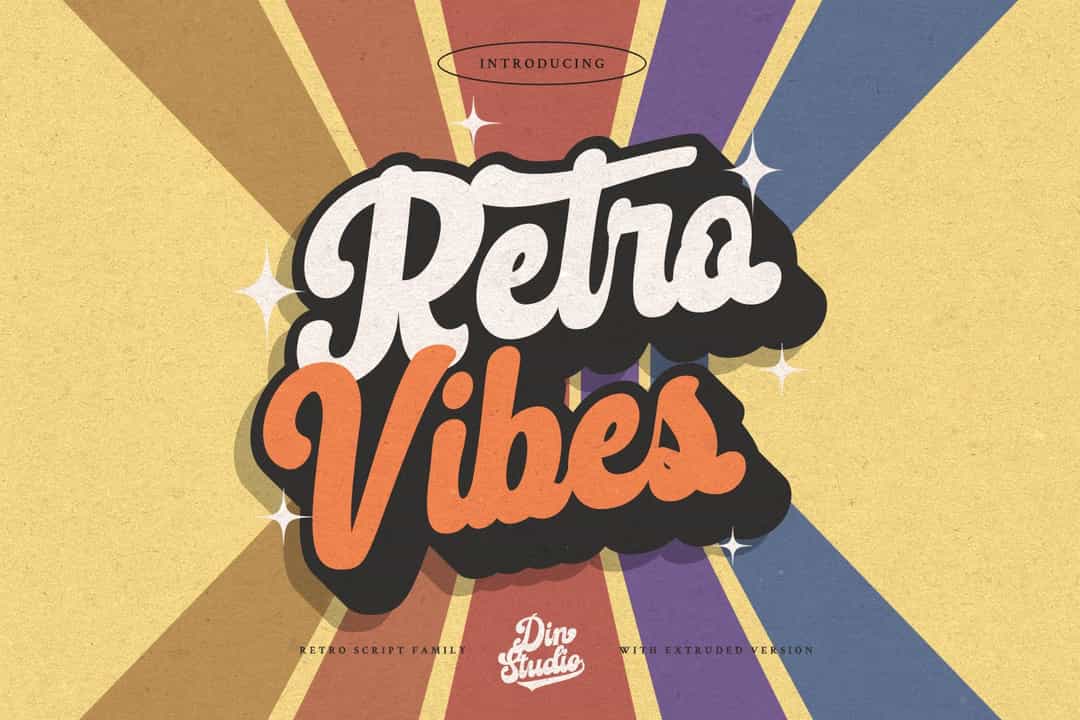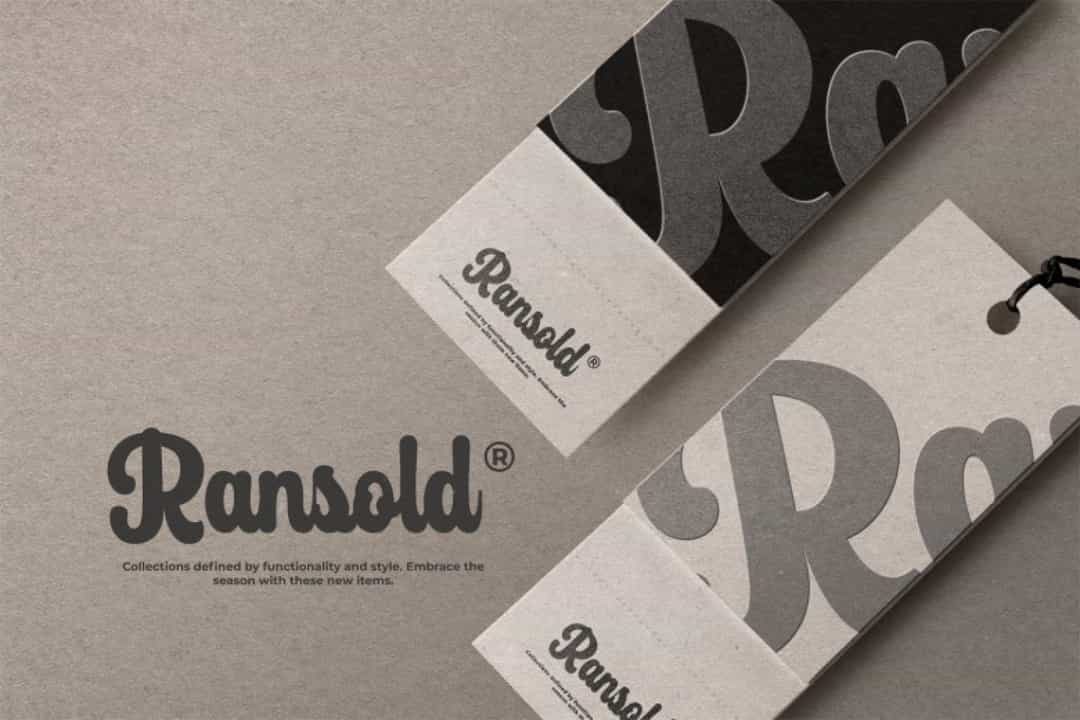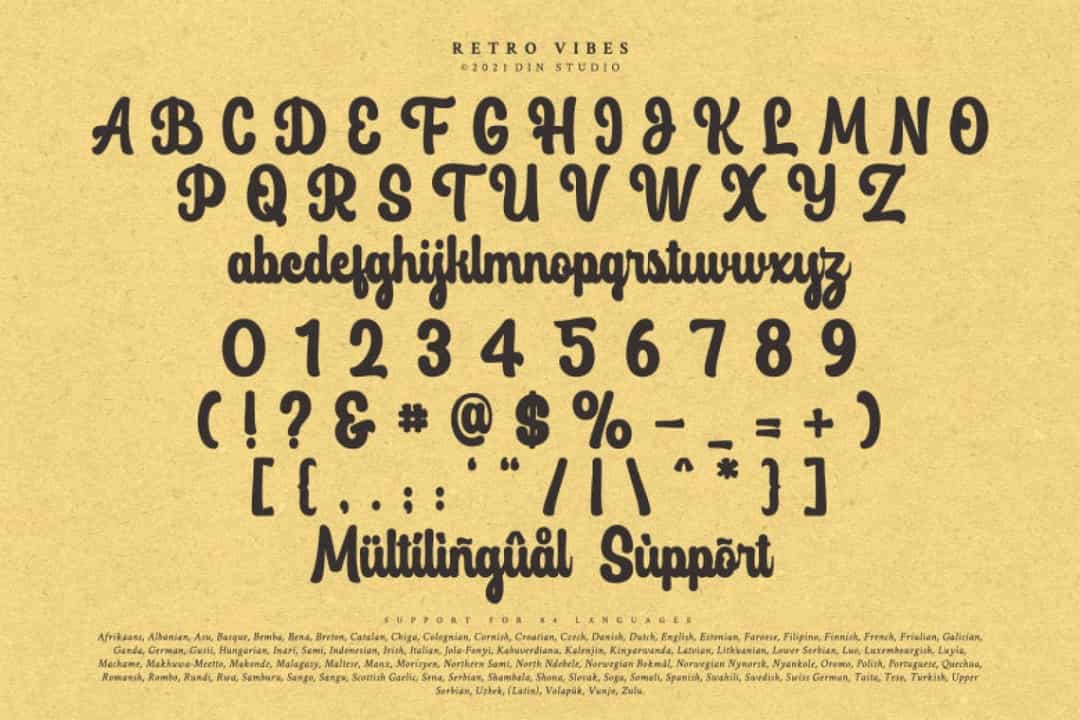
Retro Vibes is a bubble-style hand-crafted font inspired by illustrations and designs of the 1960s. Featuring an eye-catching halftone texture to evoke that vintage aesthetic. Available both italic and regular versions for maximum flexibility! Retro Vibes offers Multilingual Support so your brand can reach a global audience.